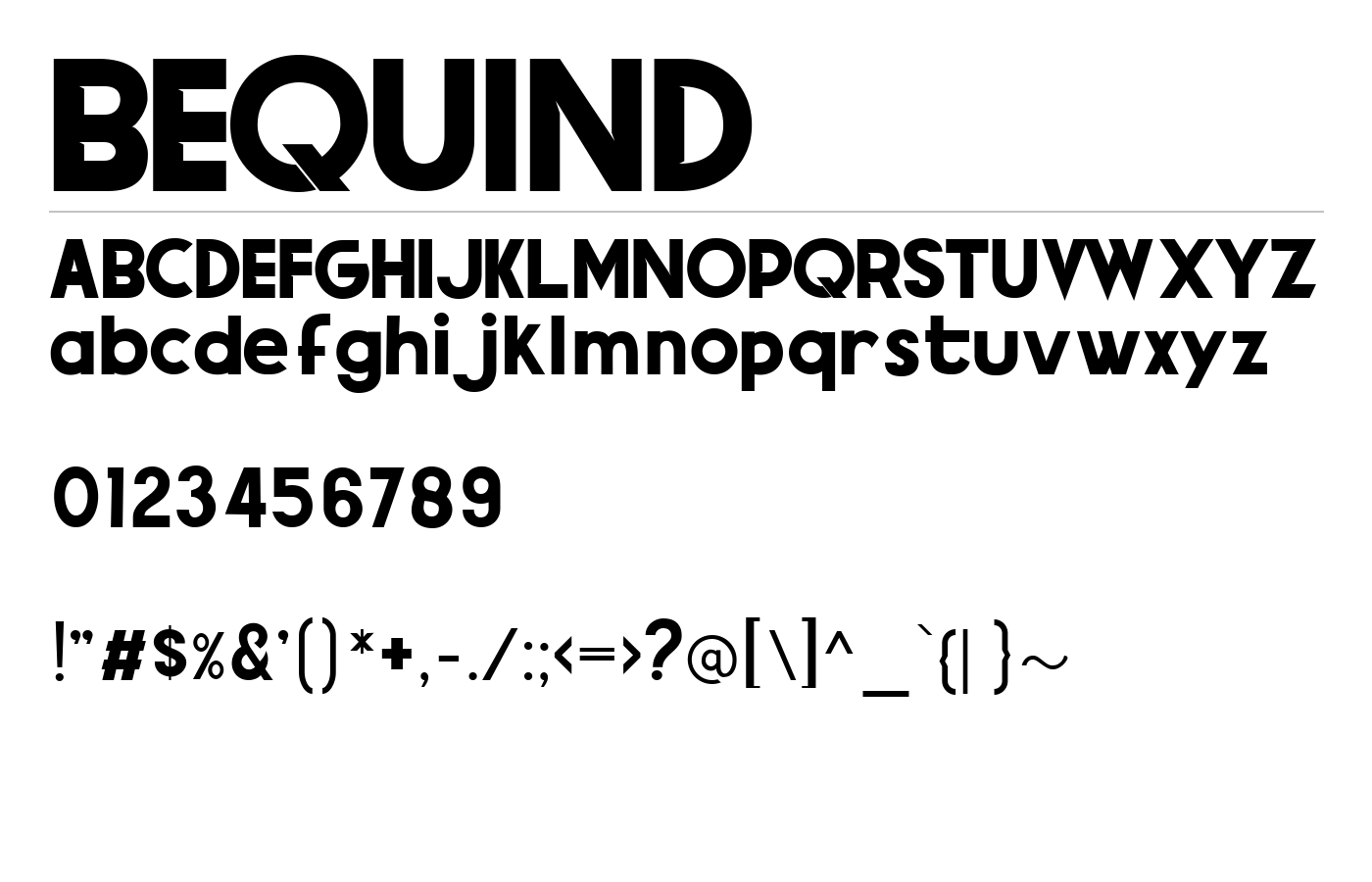
BEQUIND is a bold, geometric sans serif font with strong, clean lines and a modern edge. Its high contrast strokes and unique shapes, like the angled leg of the Q, give it a distinctive and confident personality, making it perfect for striking headlines and branding that demand attention. This font works particularly well in contemporary design projects where clarity and impact are key.
BEQUIND Font
About BEQUIND Font
| Font family | BEQUIND Font |
| Designer | Moh.Taufiq Hidayatullah |